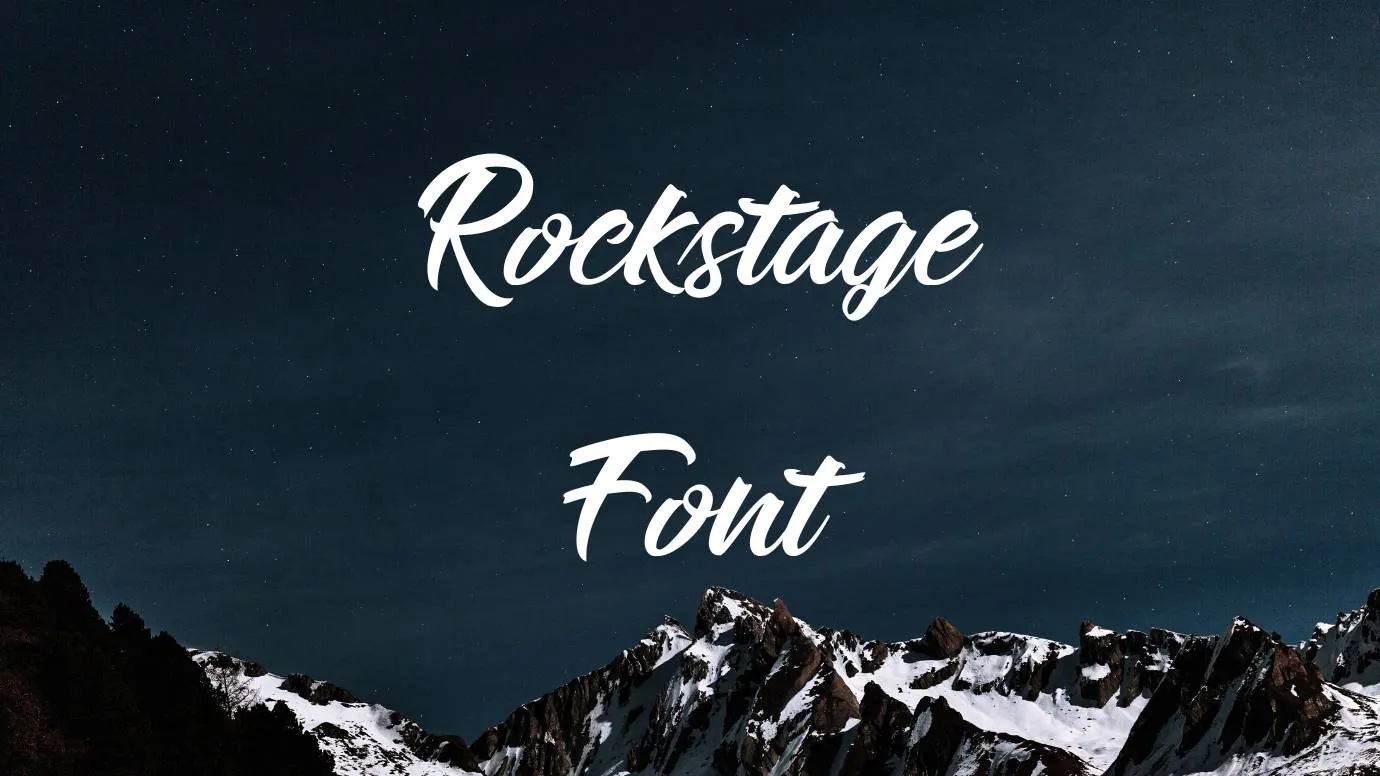
Rockstage Font Family is a bold calligraphy-type font that has elegant characters. This font family has many similar fonts that are available for pairing with this font like Matthew Font which comes with thin swashes.
Rockstage Font was developed by Mozarella and falls in the category of calligraphic fonts. This gorgeous typography comes with bold and modern look swashes that make it similar to script designs.
| Name | Rockstage Font |
| Type | Calligraphy |
| Designer | Mozarella |